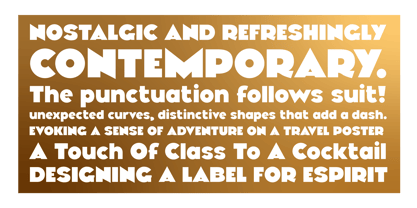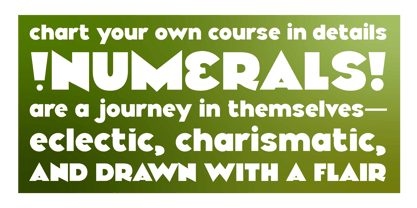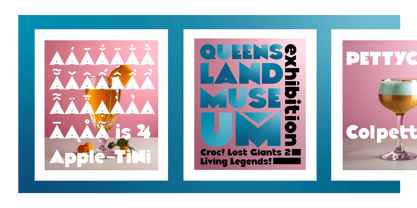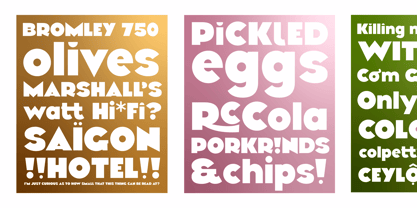
Ceylon Deco
Escape the ordinary and infuse your designs with the spirit of adventure. Ceylon Deco is the geometric sans-serif for brands that tell a story. Inspired by the sun-drenched travel posters of vintage Ceylon, this font blends timeless Art Deco elegance with a captivating, rebellious streak.
Where Sophistication Meets Spice.
While the letterforms provide a clean, modern, and highly legible foundation, the real magic lies in the details. Ceylon Deco features a set of wildly charismatic numerals and punctuation marks, each with a confident flourish. This eclectic touch ensures that your designs—from pricing on a menu to dates on a poster—will never go unnoticed. It’s the secret ingredient that turns good design into a memorable experience. Don't just make a design—create a destination.
Instantly Elevate Your Projects:
This versatile typeface is meticulously crafted to be your go-to choice for:
• Travel & Hospitality: Create stunning posters, branding, and campaigns that evoke a sense of wanderlust.
• Artisanal Brands: Design unforgettable labels for spirits, coffee, and boutique products that need to stand out on the shelf.
• Menus & Eateries: Add a dash of worldly charm to any restaurant, bar, or café.
Music & Publishing: Craft iconic album art, book covers, and editorial layouts with a voice of their own.